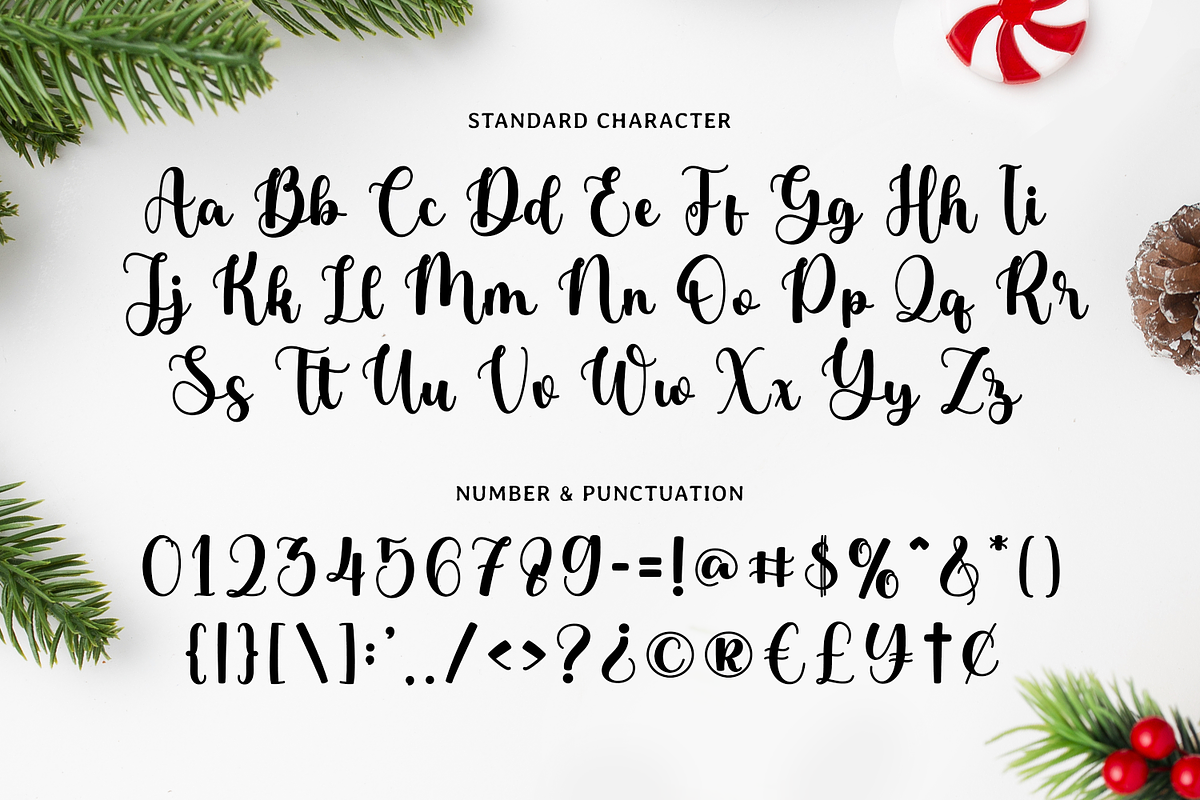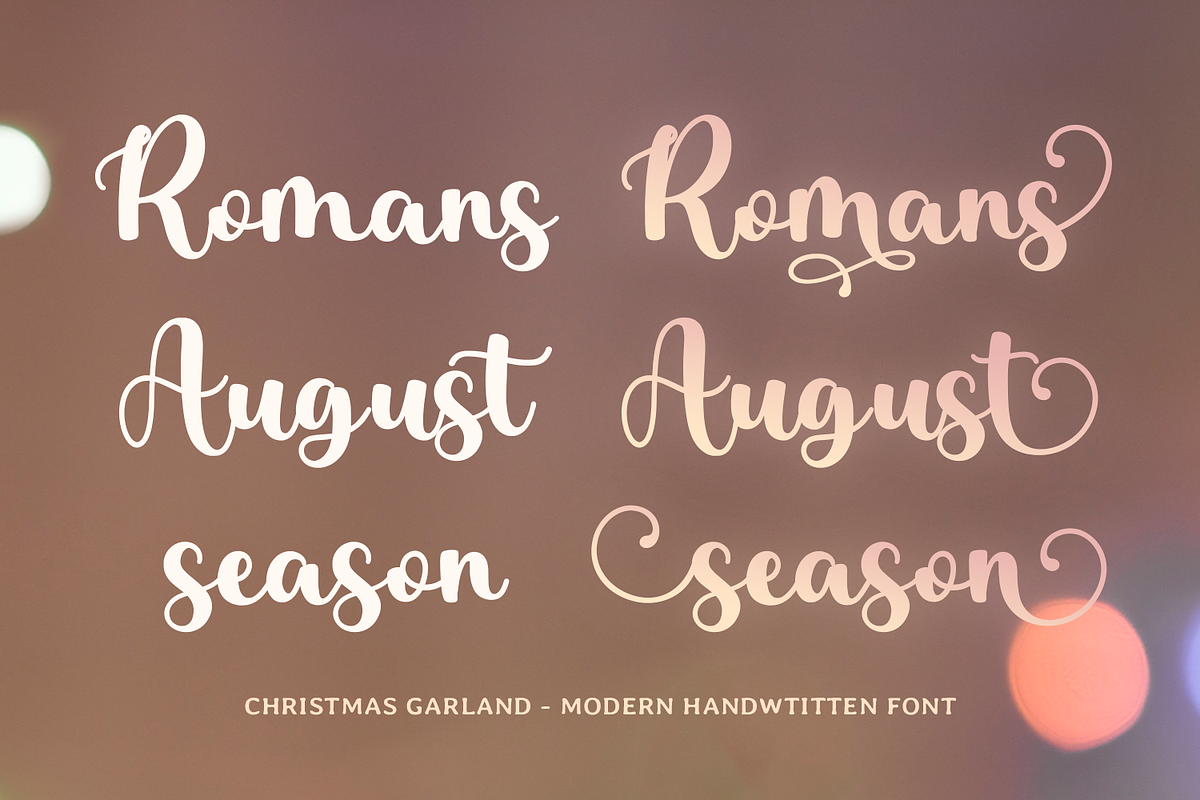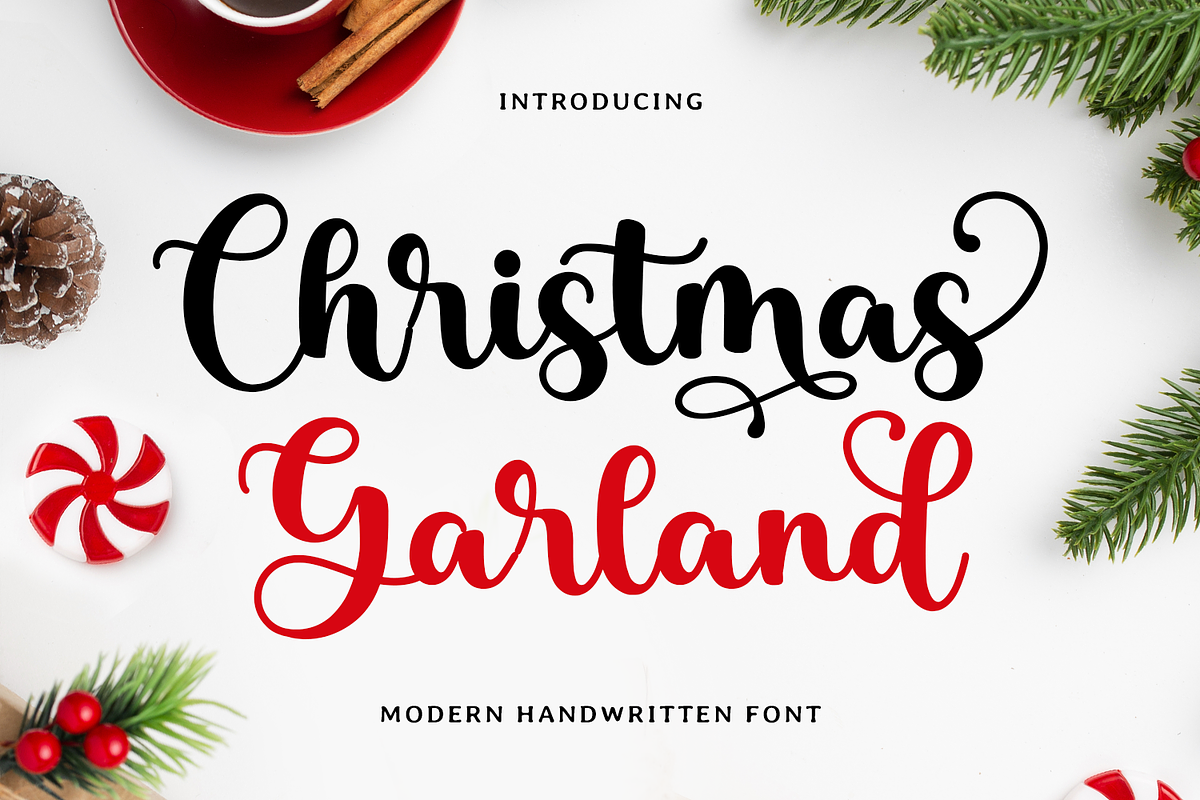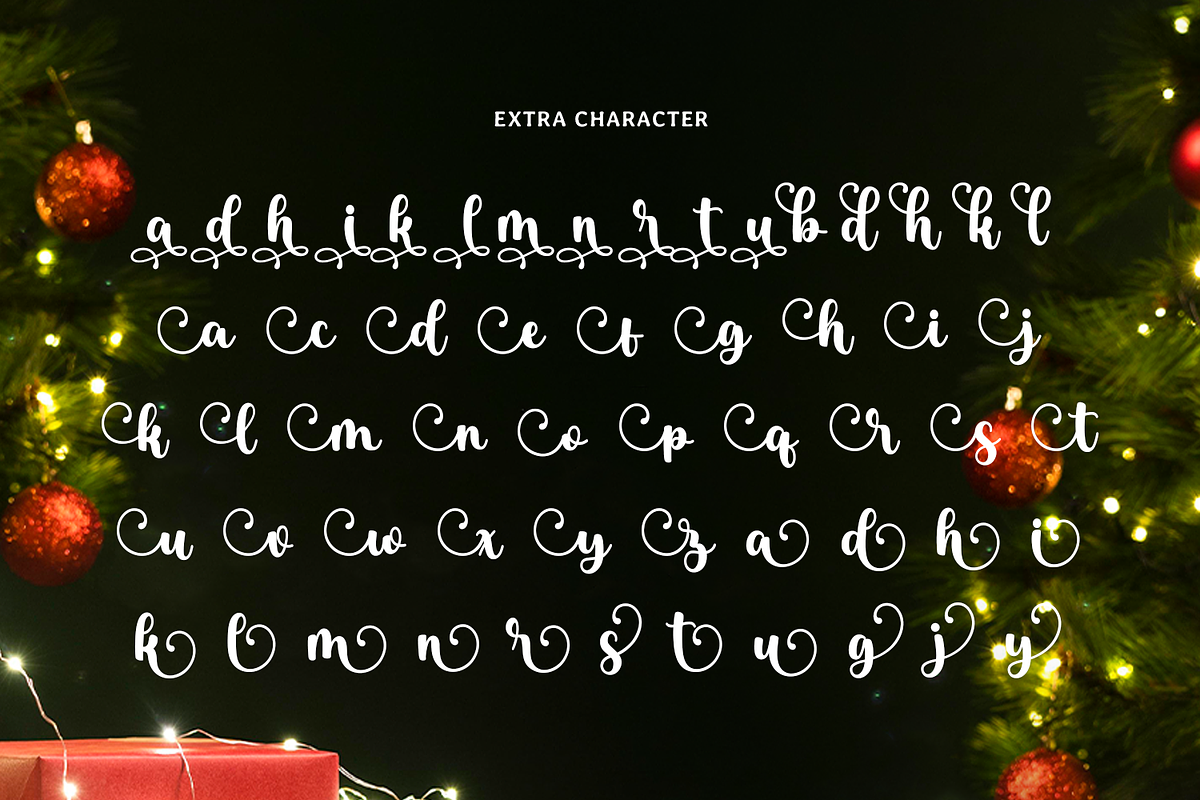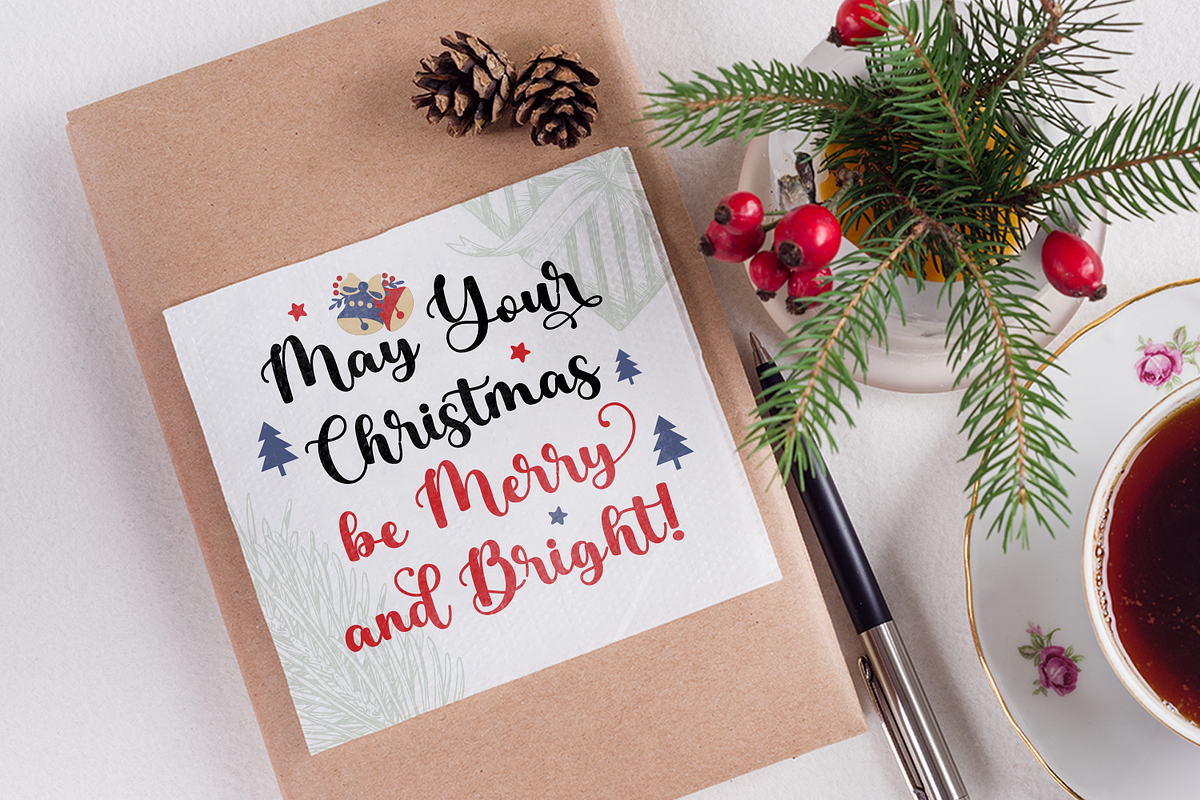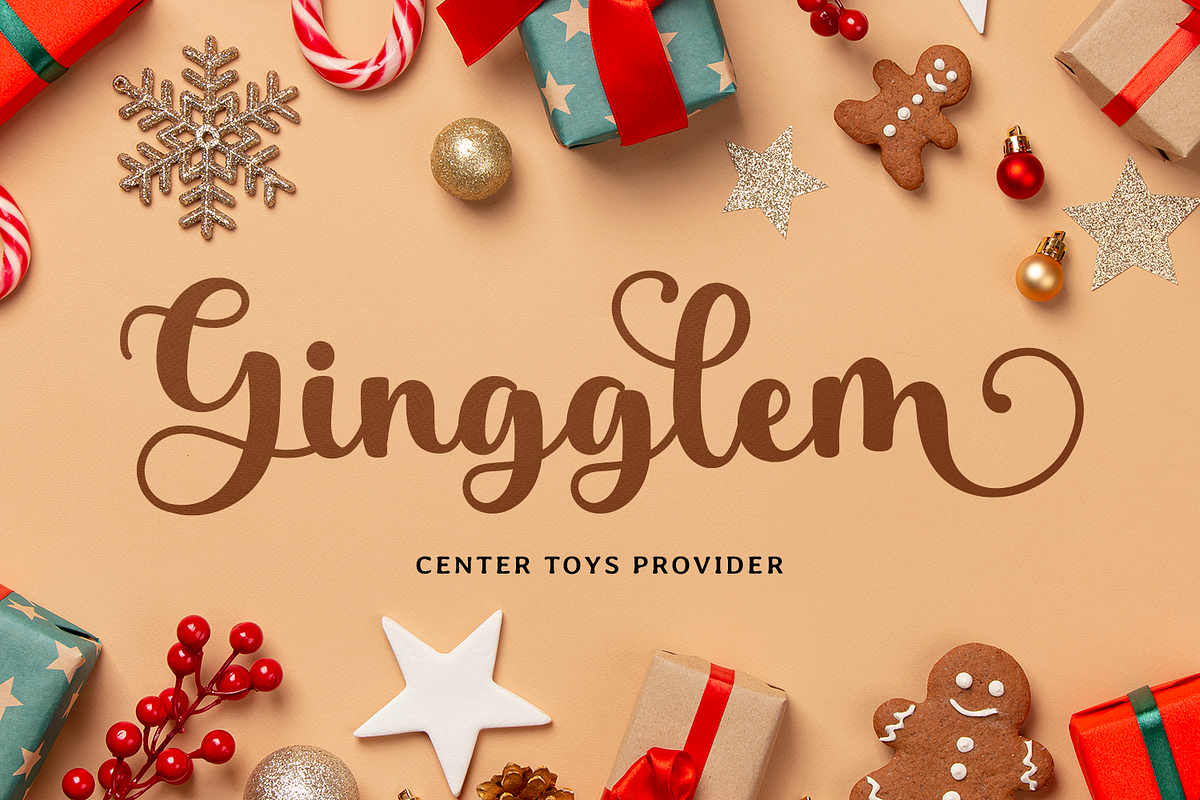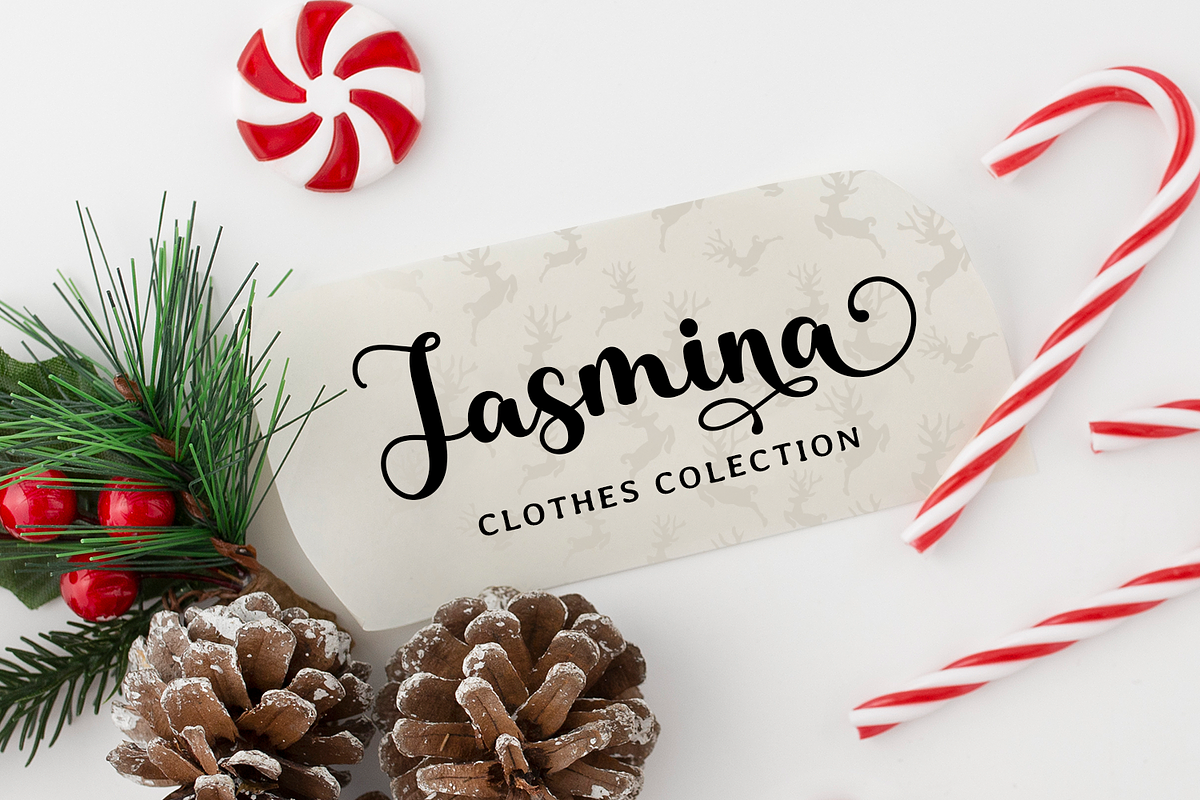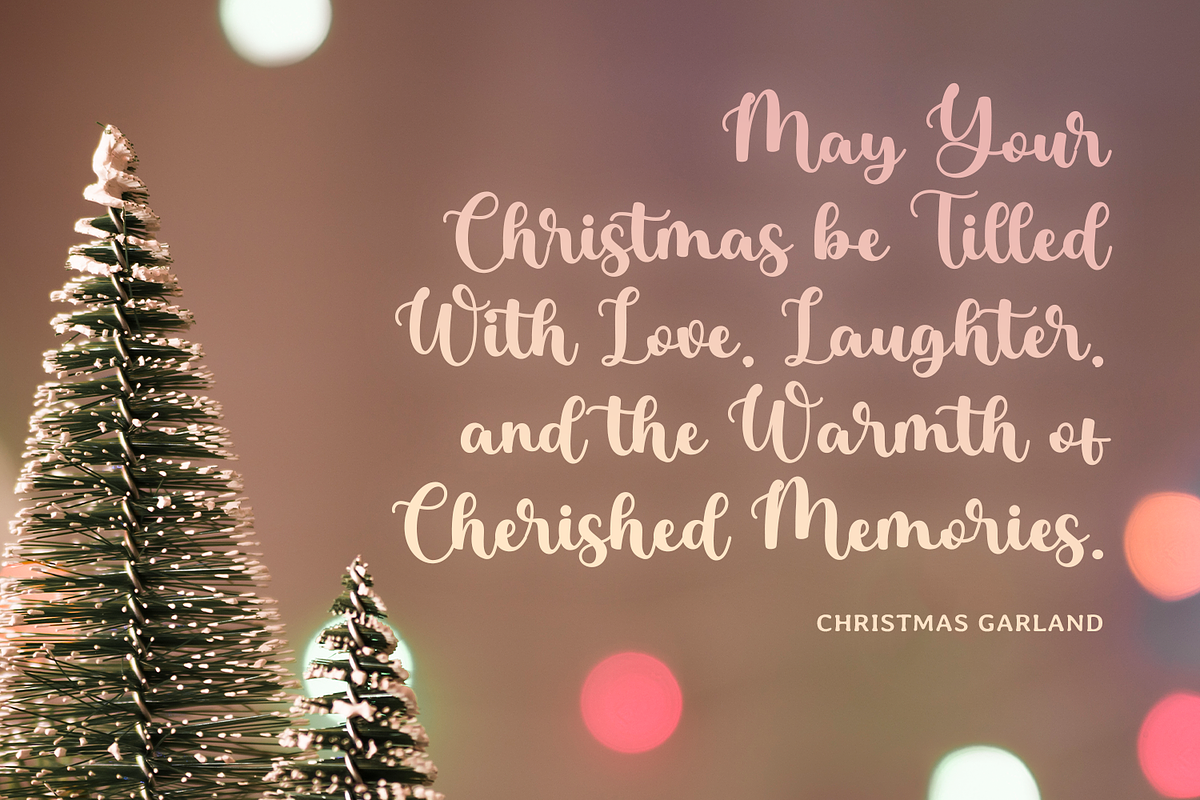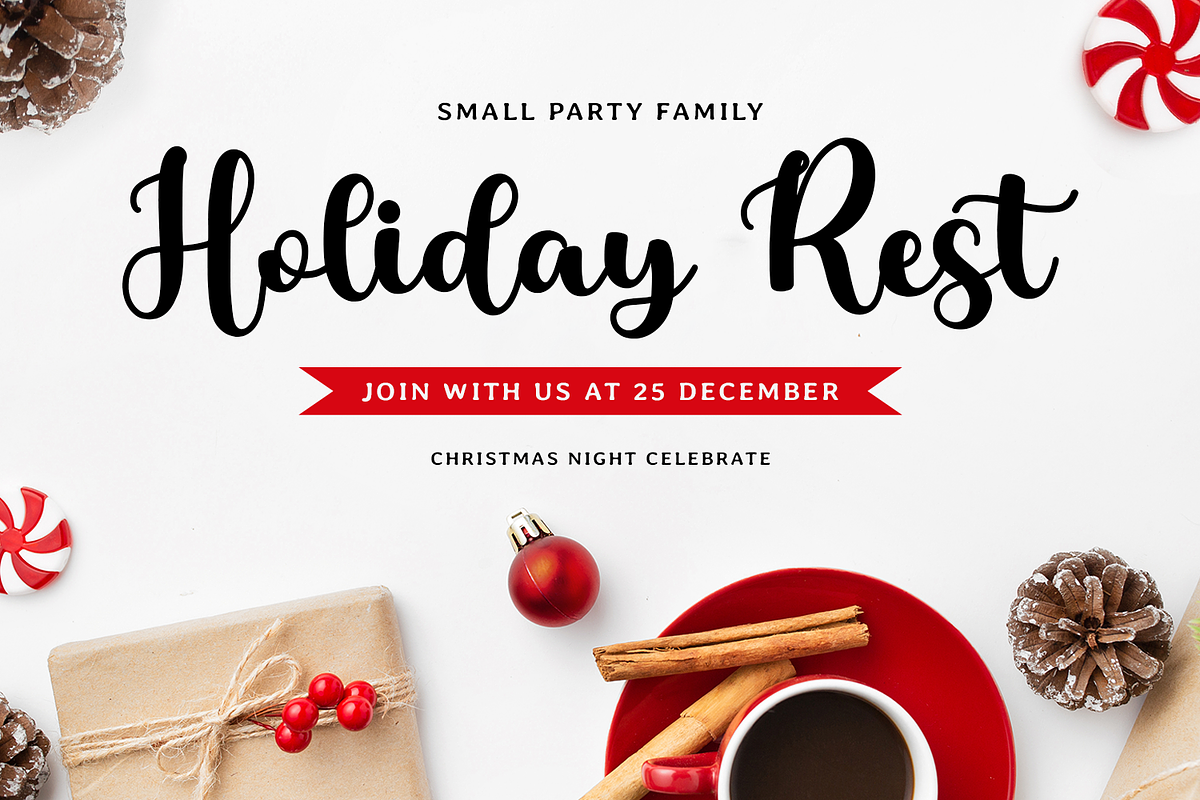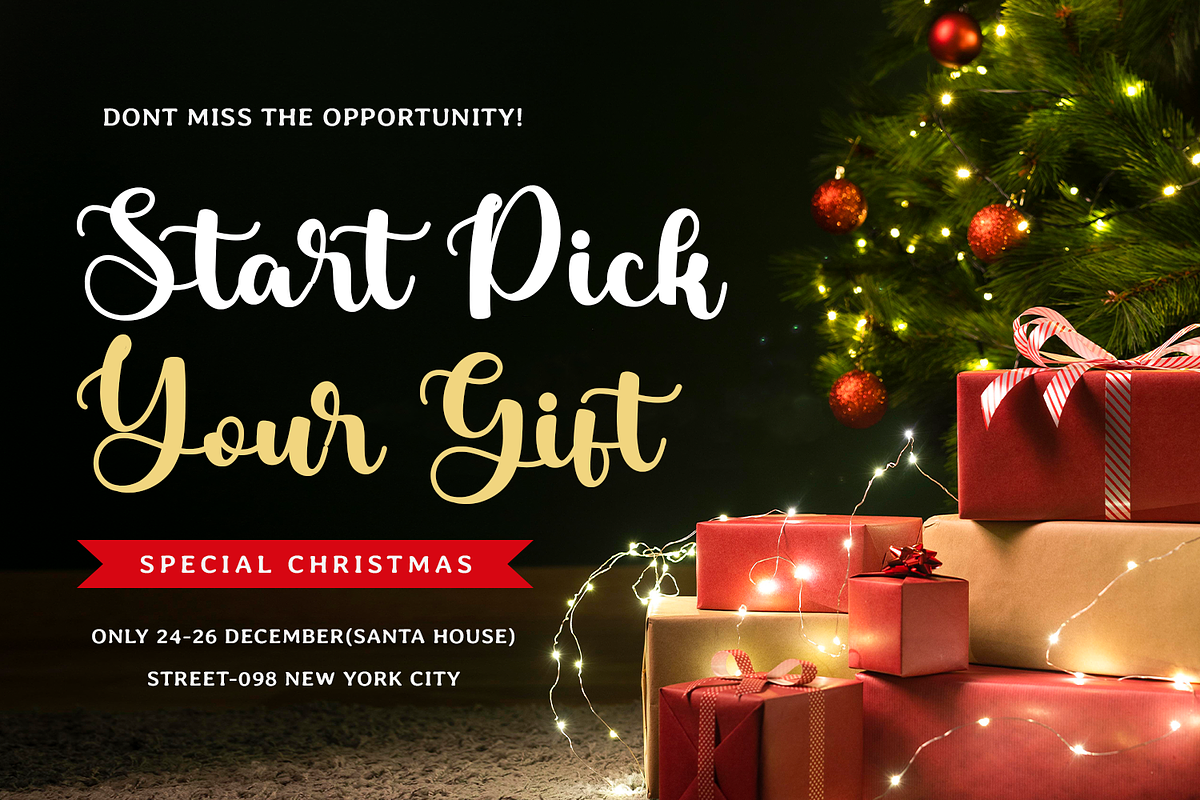
Christmas Garland
Christmas Garland is a festive and elegant script font inspired by the warmth and joy of the holiday season. Its graceful curves and flowing strokes evoke the charm of handwritten calligraphy, making it a perfect choice for Christmas and winter-themed projects. Whether you’re designing invitations, greeting cards, or holiday decor, this font brings a magical touch to your creations.
With delicate swashes and decorative elements, Christmas Garland exudes a timeless beauty that complements festive occasions like New Year, Thanksgiving, and Christmas. Ideal for Cricut designs, SVG crafts, embroidery, and more, this versatile typeface ensures your projects radiate holiday cheer. The beginning and ending swashes of each character create a harmonious flow, adding sophistication to your lettering and design work.
Spread the holiday spirit with Christmas Garland—a must-have for crafting enthusiasts and designers looking to add a touch of festive elegance to their creations. Make your designs unforgettable with this enchanting font!
- Standard & Multilingual glyphs.
- Alternate glyphs & Unique Ligature.
- Fonts include multilingual support for; Afrikaans, Danish, Dutch, French, German, Indonesian, Irish, Italian, Norwegian, Portuguese, Scottish, Spanish, Swedish, Swiss etc.